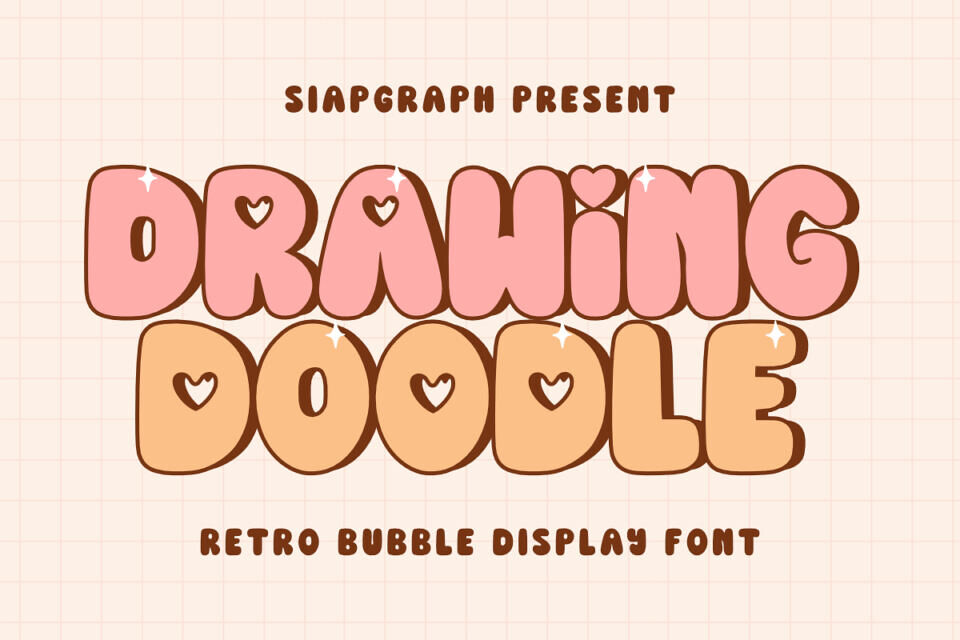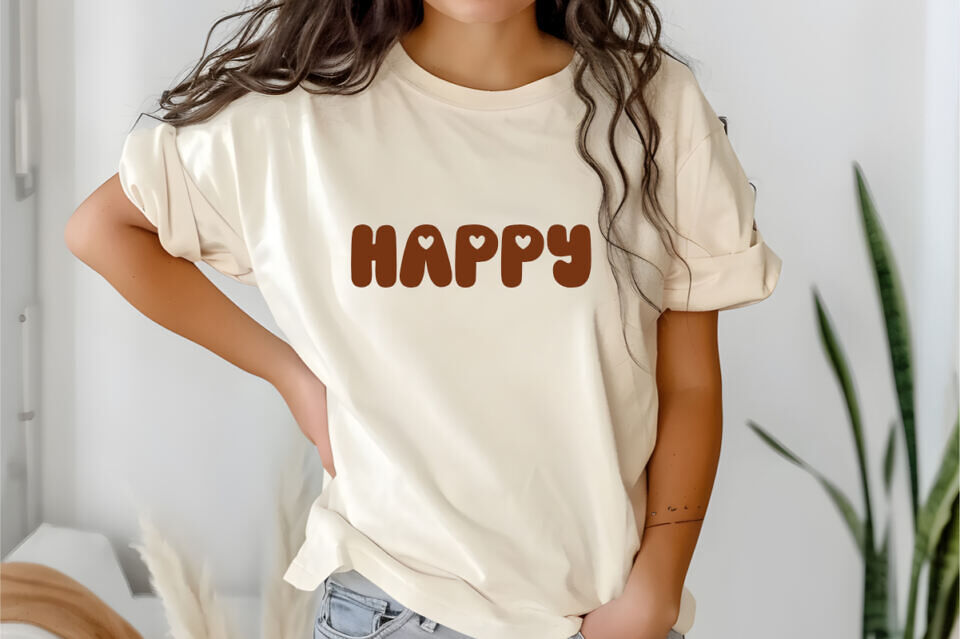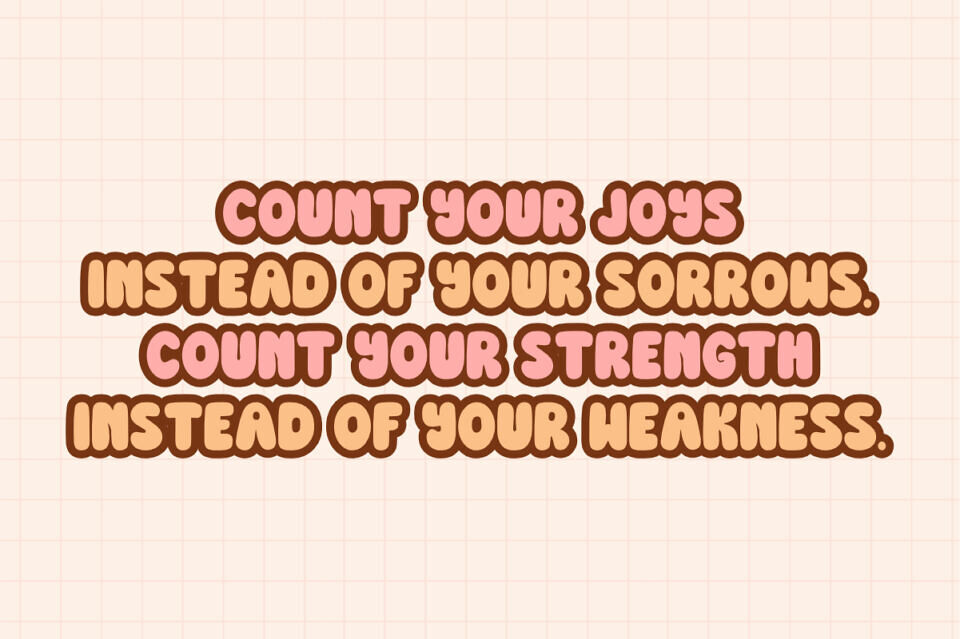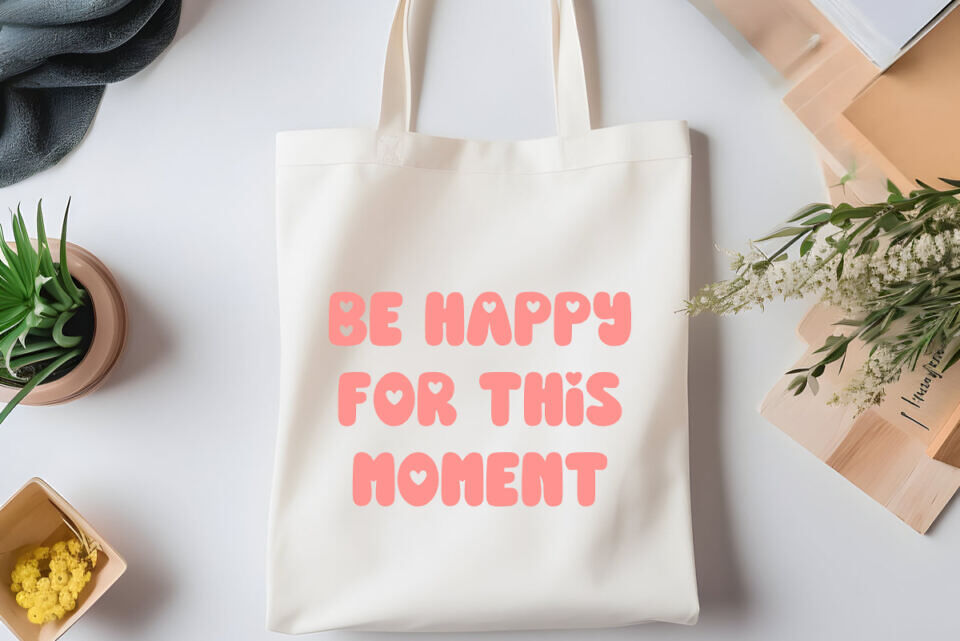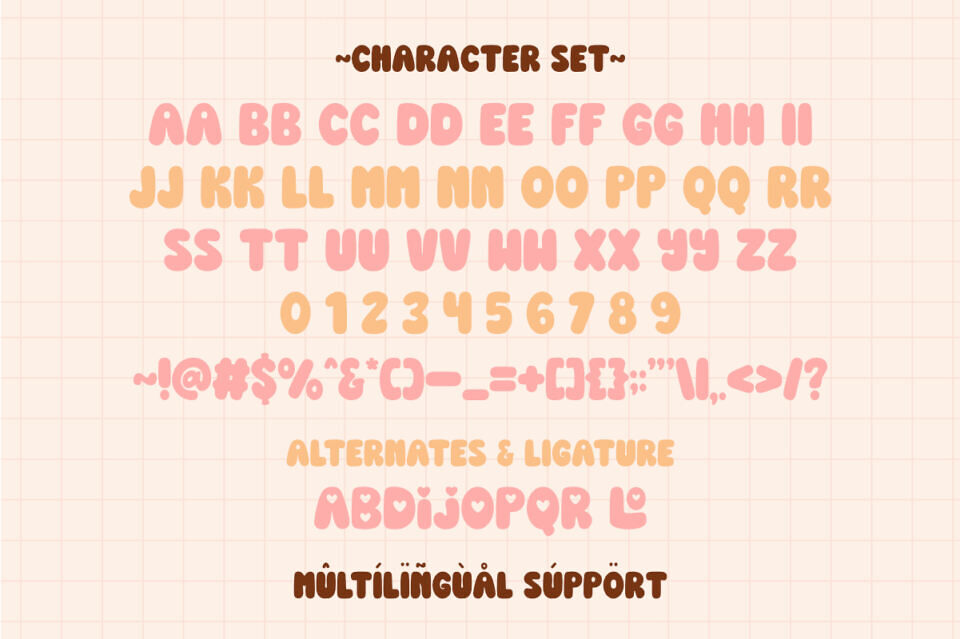
Drawing Doodle is a vibrant and imaginative bubble retro display font that perfectly captures the essence of artistic freedom and playful creativity. Its plump, rounded, and wonderfully soft letterforms evoke a nostalgic feeling of hand-drawn art, while the adorable heart accents add a touch of sweetness and charm.
This font is perfect for infusing a dose of artistic joy and whimsical retro style into a wide array of creative projects. Imagine Drawing Doodle enhancing delightful stickers, imaginative planner elements, eye-catching t-shirt designs, sweet product labels for craft supplies, charming invitations for art parties, personalized tumblers, and a plethora of other engaging crafts.
Its distinctively bubbly and retro style makes it exceptionally well-suited for products targeting end-users who enjoy crafting with tools like Cricut and for sublimation projects, as well as for creating appealing stickers and planner elements with a truly unique and joyful flair.